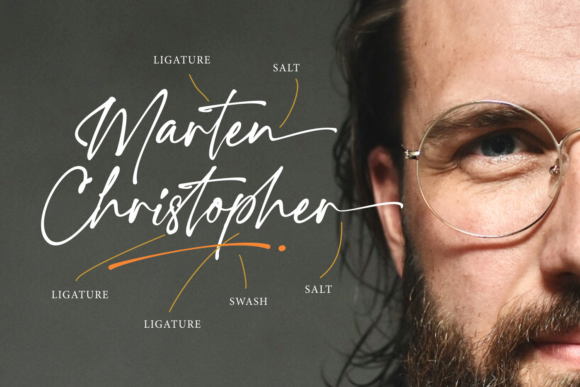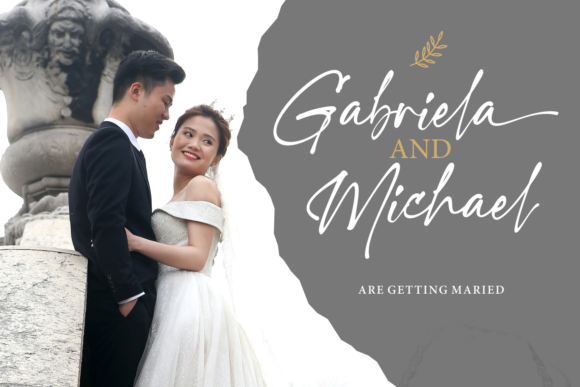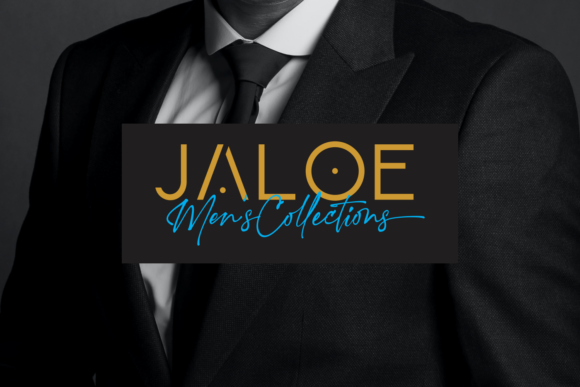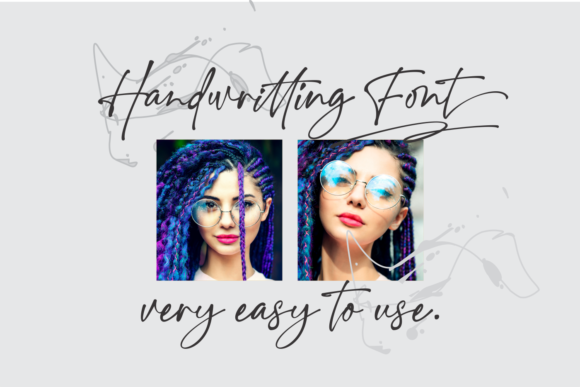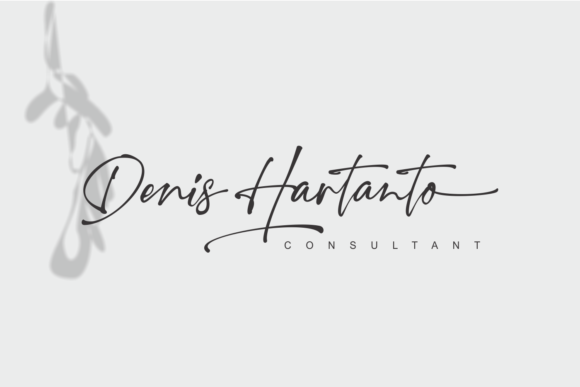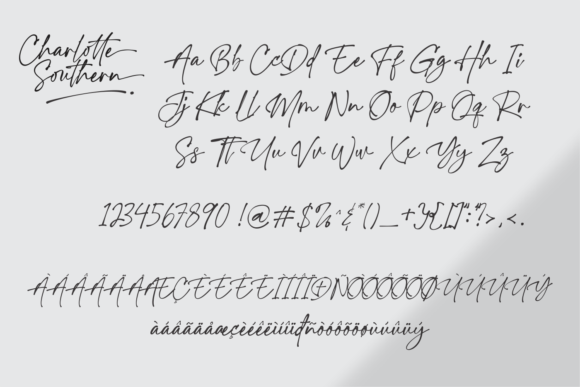
Introducing Charlotte Southern Font: A Quirky and Versatile Handwritten Delight
Are you on the hunt for a font that adds a touch of personality to your designs? Look no further than the Charlotte Southern Font! This spectacular handwritten font is a little bit quirky, making it perfect for a wide variety of contexts. Whether you’re a designer, crafter, or DIY enthusiast, Charlotte Southern is sure to become your new go-to font.
What Makes Charlotte Southern Font So Special?
Charlotte Southern Font is a standout in the world of typography due to its unique blend of playfulness and sophistication. Its handwritten charm makes it perfect for projects that require a personal touch, such as:
- Branding and packaging designs
This font’s versatility is unmatched, and its quirky personality is sure to make your designs stand out from the crowd.
One of the best features of Charlotte Southern Font is that it’s PUA (Private Use Area) encoded. This means that you can access all of the glyphs and swashes with ease, giving you even more creative freedom to experiment with your designs.
PUA encoding allows you to:
- Access a wide range of alternative characters and ligatures
- Customize your text with unique swashes and ornaments
- Create stunning headings and titles with ease
With PUA encoding, you can take your designs to the next level and add an extra layer of sophistication and elegance.
Why Designers and Crafters Love Charlotte Southern Font
Designers and crafters alike adore Charlotte Southern Font for its:
- Unique and quirky personality
- High level of legibility and readability
- Versatility and adaptability
- Easy-to-use PUA encoding
Whether you’re creating professional designs or working on personal projects, Charlotte Southern Font is the perfect choice. Its charm and character will add a touch of warmth and personality to any project.
Tips and Tricks for Using Charlotte Southern Font
To get the most out of Charlotte Southern Font, try the following tips and tricks:
- Experiment with different font sizes and styles to add visual interest
- Combine Charlotte Southern with other fonts for a unique and eye-catching look
- Use the font’s swashes and glyphs to add a touch of elegance and sophistication
- Don’t be afraid to get creative and try new things – Charlotte Southern Font is designed to be versatile and adaptable!
With these tips and tricks, you’ll be well on your way to creating stunning designs that showcase the beauty and charm of Charlotte Southern Font.
In conclusion, Charlotte Southern Font is a spectacular handwritten font that’s perfect for designers and crafters looking to add a touch of personality to their projects. Its quirky charm, versatility, and PUA encoding make it a standout in the world of typography.